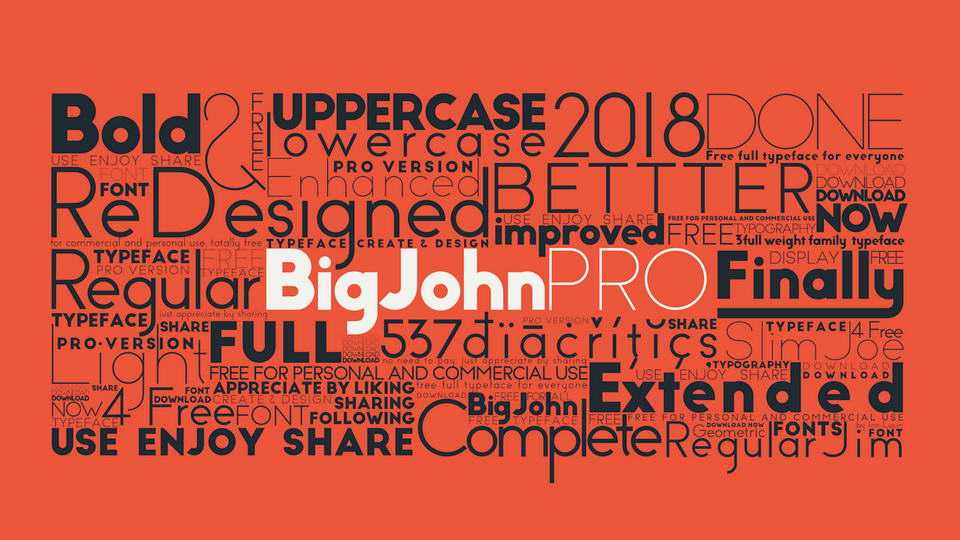
Download Big John Pro typeface, a geometric sans serif font family in three styles. Big John Pro suits for variety design purposes from logos, headlines, posters to text blocks and other creative designs.
Designer: Ion Lucin